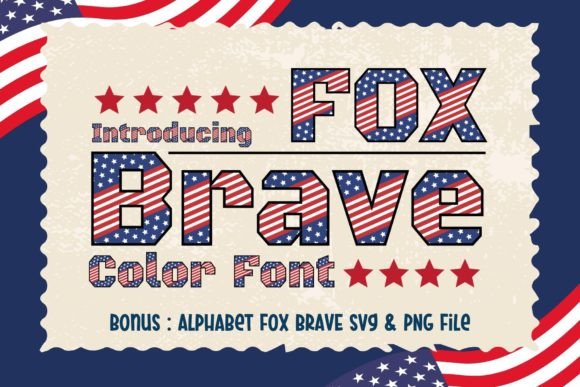
Fox Brave: A Font That Celebrates American Spirit
There are typefaces that simply communicate words, and then there are typefaces that carry a message within their very form. Fox Brave falls squarely into the latter category. This is a premium font designed not just for legibility, but for declaration. At its core, it is a color font, meaning the glyphs themselves contain color data—specifically, a distinct stars and stripes pattern woven into the letterforms. It transforms standard headlines into patriotic statements without needing additional design filters or effects.
When you look at Fox Brave, you immediately feel the weight of American heritage. The visual style is bold and unapologetic, evoking the feeling of vintage parade banners or hand-painted signage found at state fairs. It captures a sense of history and celebration, making it a powerful tool for projects centered on American culture. Whether you are designing for Independence Day, Veterans Day, or Memorial Day, this typeface provides an instant thematic anchor. It is not a subtle font; it is a display font meant to grab attention and hold it, infusing a sense of national pride into any digital or physical canvas.
Where Fox Brave Makes an Impact
Understanding where to deploy a specialized typeface like this is key to successful brand identity and design assets management. Because of its intricate pattern and bold nature, Fox Brave is best suited for large-scale applications where the detail can be appreciated. It shines brightest in headlines, hero sections, and signage.
For marketers and entrepreneurs running seasonal campaigns, this font is a game-changer. Imagine an e-commerce banner for a Fourth of July sale. Instead of using a standard sans serif font and layering a flag texture over it, Fox Brave provides that aesthetic in a single keystroke. It works exceptionally well for:
However, it is crucial to remember that Fox Brave is a creative font, not a workhorse body text. You would not use it for a paragraph of blog copy; the pattern would become visually noisy and difficult to read at small sizes. Instead, think of it as the anchor for your editorial design or web design headers, paired with a clean, legible typeface for the supporting text.
Visual Hierarchy and Brand Perception
Typography is psychology made visible. The fonts you choose influence how your audience perceives your message before they even read the words. Using Fox Brave signals a specific set of values: tradition, boldness, and patriotism. If your brand relies on a rugged, classic American aesthetic—think vintage workwear, outdoor gear, or historical storytelling—this font can significantly boost your brand perception.
In terms of visual hierarchy, Fox Brave naturally dominates. Its high-contrast design and embedded colors draw the eye immediately. This makes it perfect for Call to Action (CTA) buttons or main slogans where you need high audience engagement. When used in a layout, it commands the top spot, allowing you to use more neutral fonts like a standard serif font or a clean modern typography sans-serif for subheadings and body copy without the design feeling flat.
Consistency is also vital. If you are building a brand around a patriotic theme, using Fox Brave across your logo design elements (provided the logo isn't too small) and key marketing materials creates a cohesive identity. It acts as a visual signature that your audience will learn to recognize. However, a word of caution on professionalism: while it adds flair, ensure the context is appropriate. A law firm might find it too whimsical, but a veteran-owned coffee roaster would find it perfectly aligned with their story.
Practical Application and Technical Considerations
Integrating a color font into your workflow requires a slightly different approach than standard font pairings. Here is a practical guide for designers, crafters, and small business owners looking to get the most out of Fox Brave.
Evaluating Project Fit
Before committing to Fox Brave, look at the scope of your project. Is the primary goal to evoke a specific American holiday or a sense of heritage? If yes, it is a strong candidate. If you are looking for a general-purpose handwritten font or script font for a wedding invitation, this is likely not the right choice. It is a thematic tool, not a generic utility.
Testing and Pairings
Always test the font at the size you intend to use it. Because it contains a pattern, it can lose definition if scaled down too small. For web design, ensure the font loads correctly as a color font (WOFF2 format supports this well in modern browsers), keeping in mind that older browsers may render it as a standard solid color.
When it comes to font pairing, contrast is your friend. The busy, decorative nature of Fox Brave pairs beautifully with simple geometric sans-serifs (like Futura or Montserrat) or sturdy slab serifs. Avoid pairing it with other decorative or script fonts, as this will lead to visual clutter and confusion.